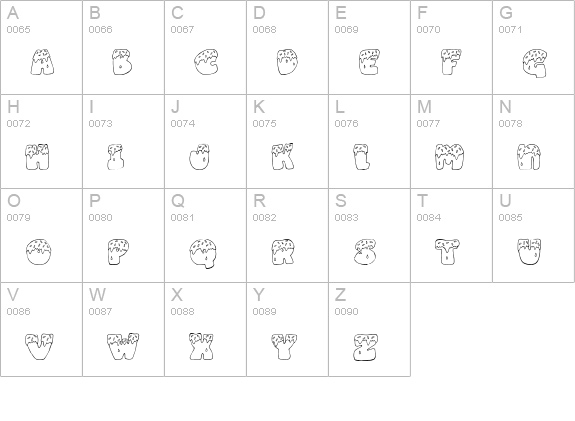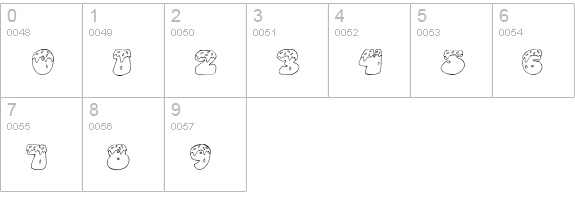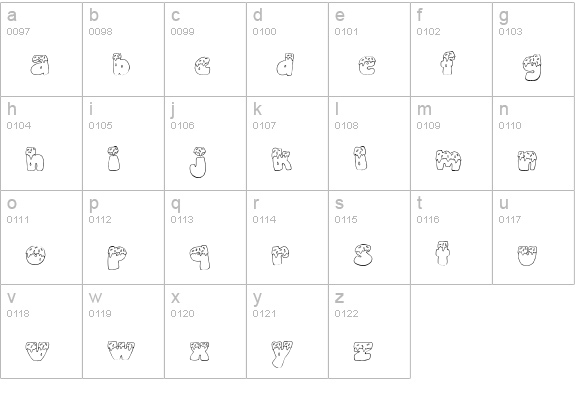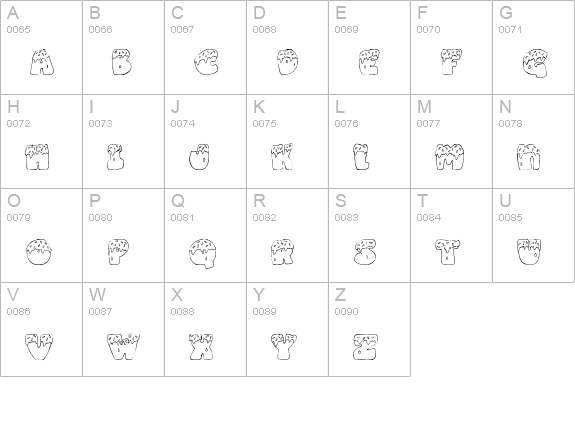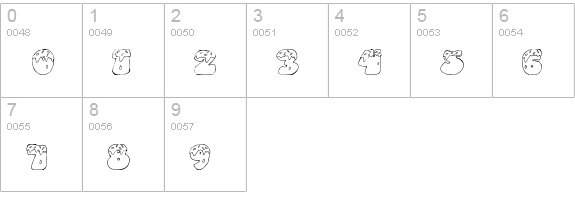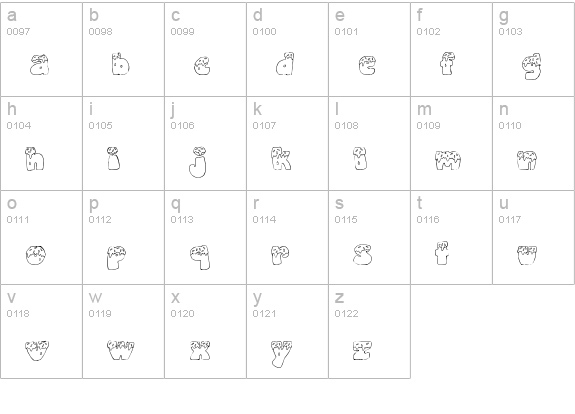
CK Frosted Font Details
Introducing CK Frosted font, a delightful and whimsical typeface that will add a touch of playfulness to your designs. This charming font features a unique frosted effect, giving it a soft and ethereal appearance that is sure to captivate your audience. CK Frosted font is perfect for a variety of projects, from greeting cards and invitations to branding and packaging. Its elegant yet playful look makes it versatile and suitable for both casual and more formal designs. Best of all, CK Frosted font is completely free to download at FontsMarket.com. So go ahead and add a sprinkle of magic to your projects with this lovely and enchanting font today!